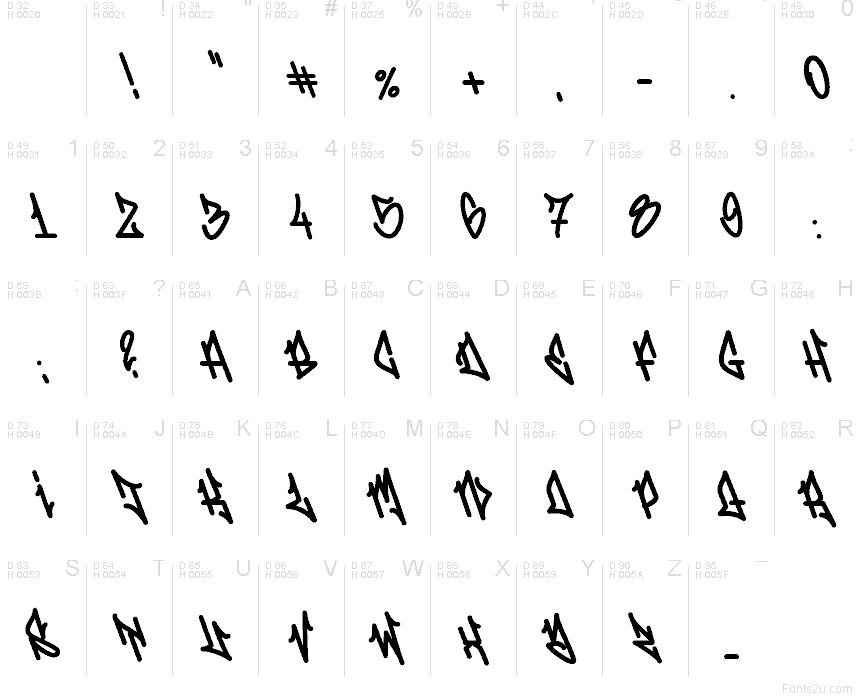
Skiller by Torus1 is a free graffiti script with the quick, angular construction of a marker tag. Its uneven strokes snap into hooked turns, sharp peaks, and loose loops.
Merchandise gives this lettering a convincing home, especially on skate graphics and streetwear. It can also shape music posters and event branding that lean on raw, improvised drawing. The recurring hooks and pointed joins can echo spray-painted arrows, tags, and angular illustration.